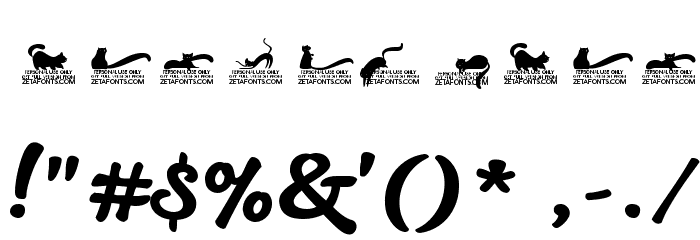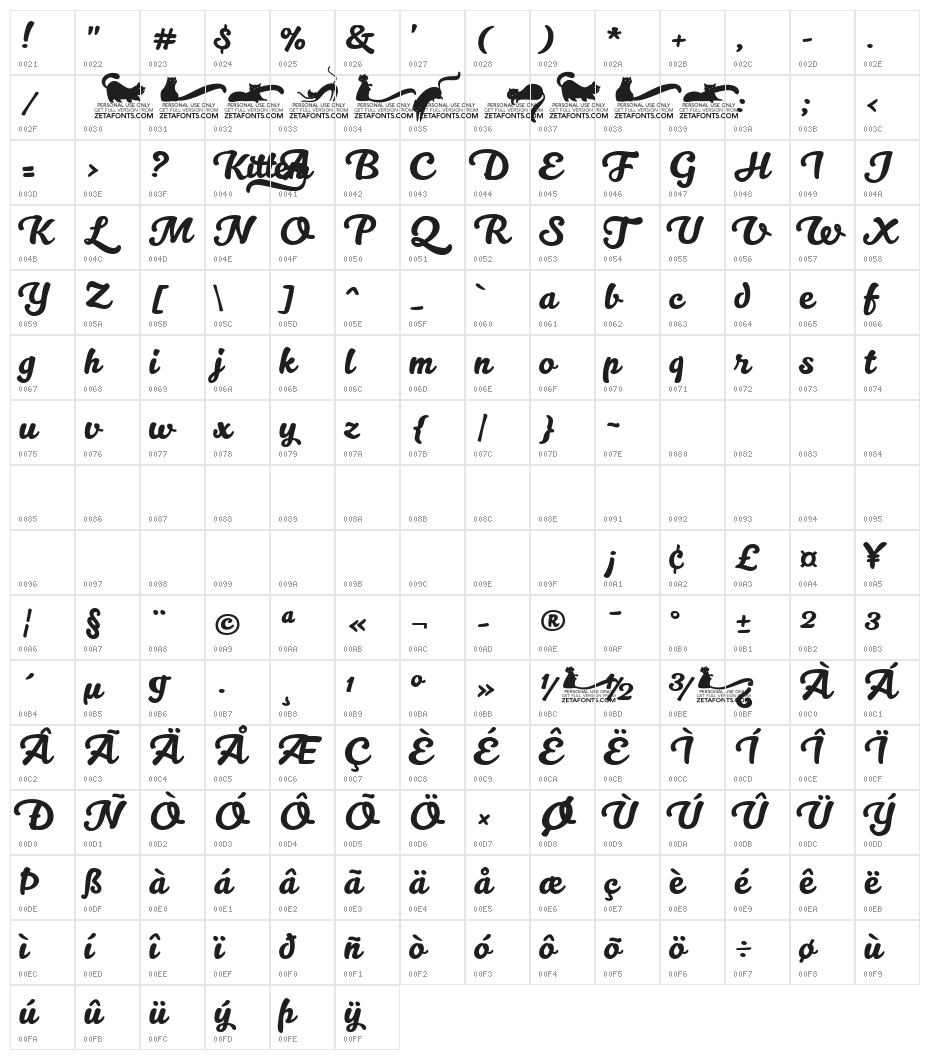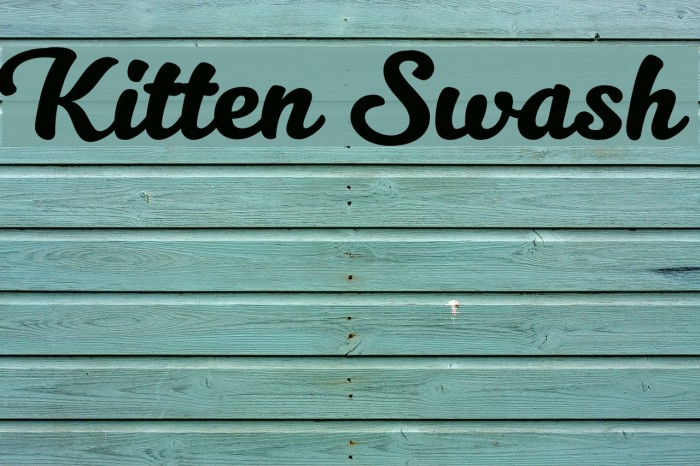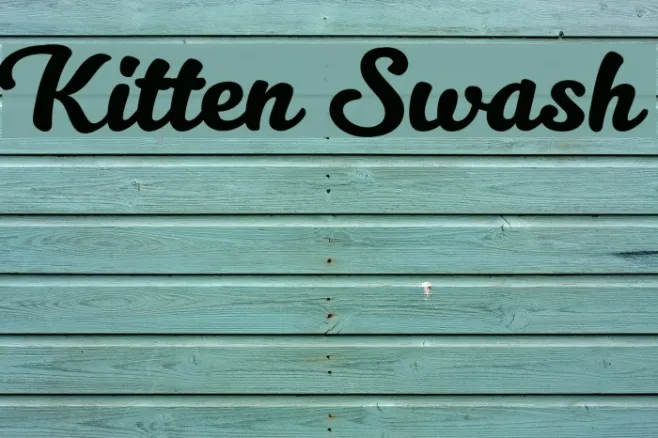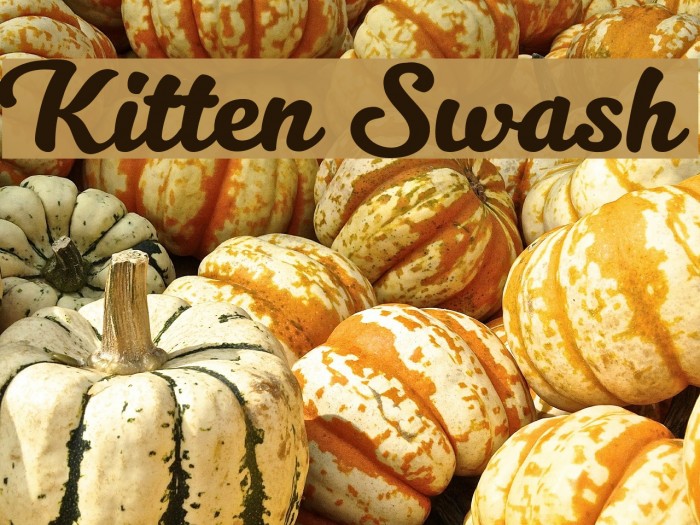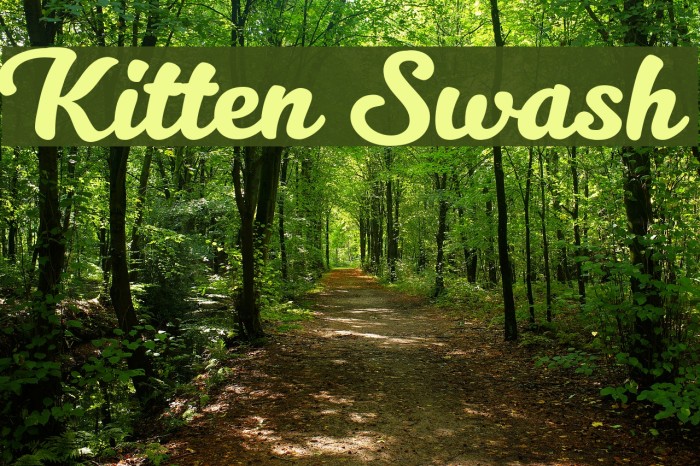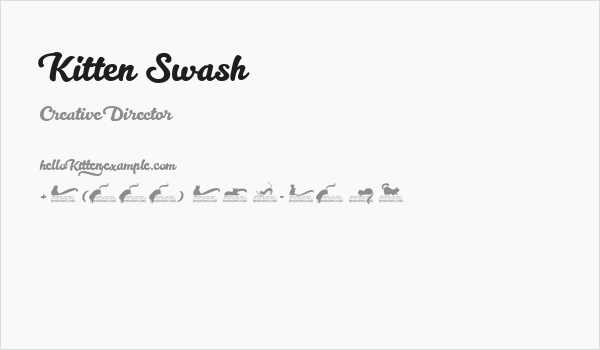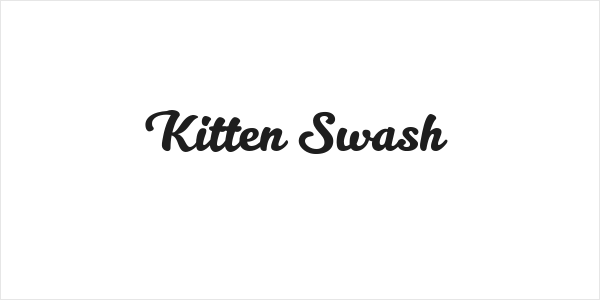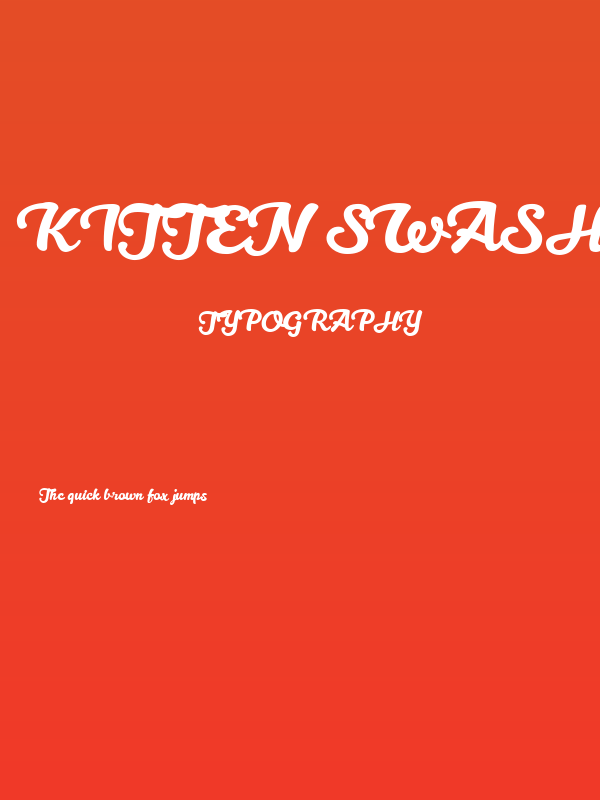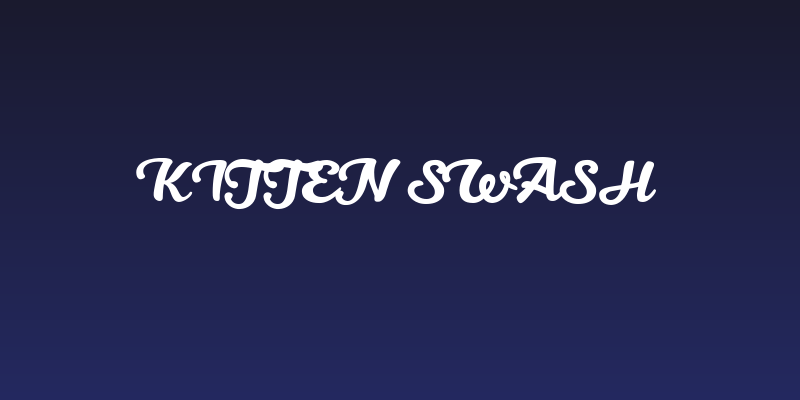
Kitten Swash Font
Kitten Swash Description
This font features a playful and elegant script style with smooth, flowing lines and a handwritten appearance. The characters are well-rounded with a slight slant, giving a sense of movement and fluidity. The uppercase letters are slightly larger and more ornate, while the lowercase letters maintain a consistent and harmonious look. The font includes a variety of special characters and punctuation marks, maintaining the same whimsical style. It is ideal for projects that require a touch of elegance and playfulness, such as invitations, greeting cards, and creative branding.
| Proposed Projects | Ideal for invitations, greeting cards, creative branding, and decorative projects. |